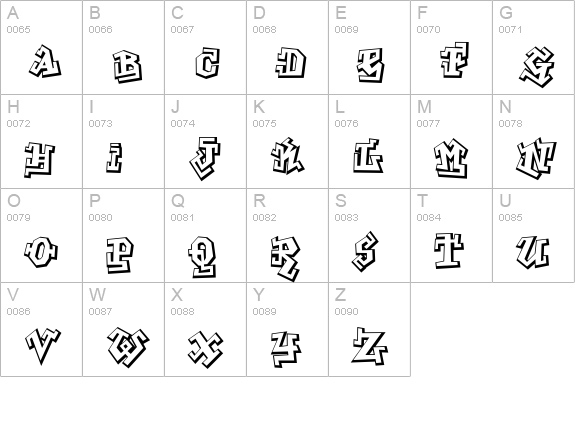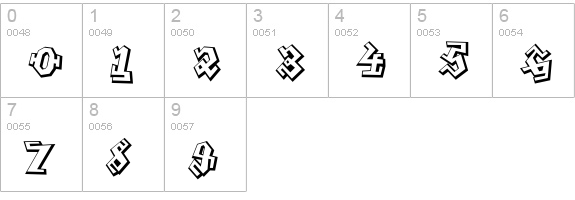
GraffitiTreat Font Details
Introducing GraffitiTreat font, a bold and dynamic typeface that captures the essence of urban street art. With its edgy and energetic style, GraffitiTreat is perfect for adding a touch of rebellious creativity to your designs. Whether you're working on a graffiti-inspired project or looking to make a statement, this font will grab attention and stand out. Best of all, GraffitiTreat is free to download at FontsMarket.com, making it accessible to everyone who wants to add a little urban flair to their work. So go ahead, unleash your inner artist and let GraffitiTreat bring your designs to life with its unique and captivating aesthetic.